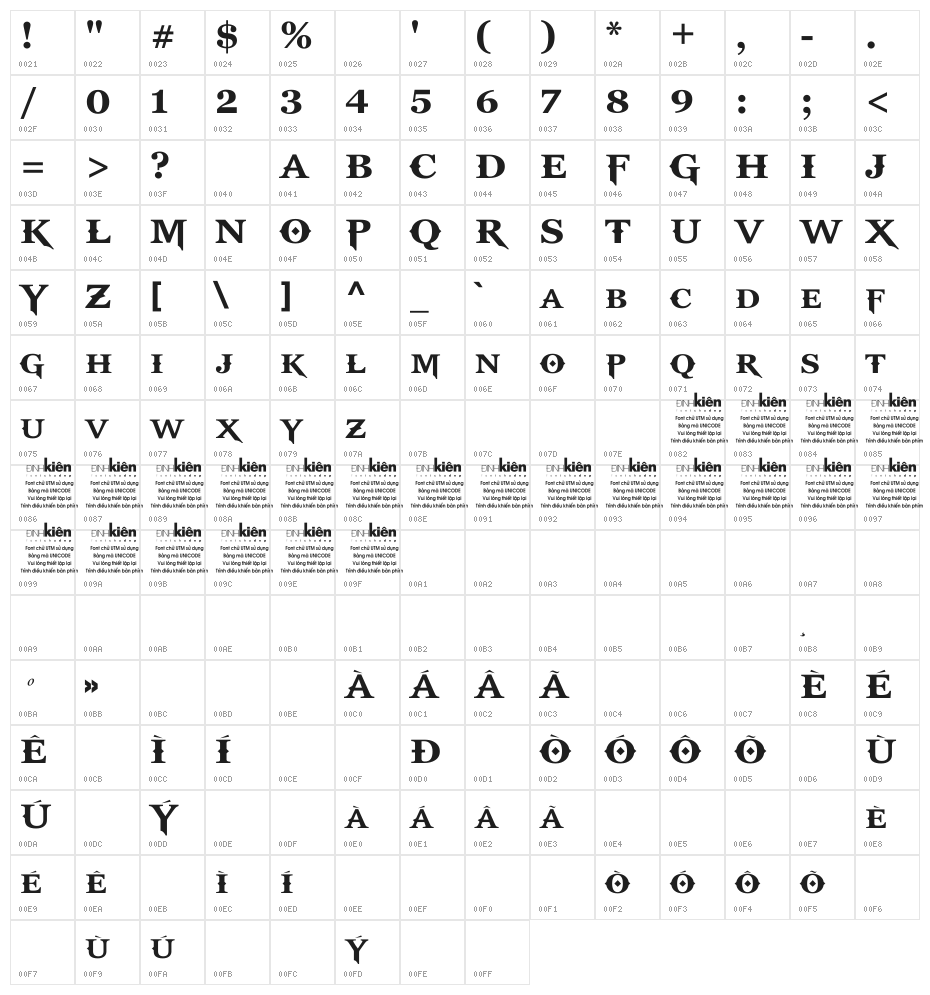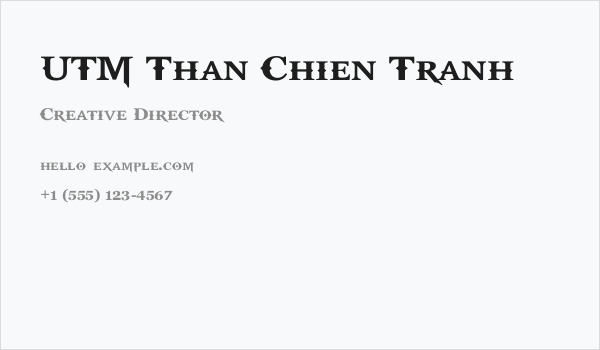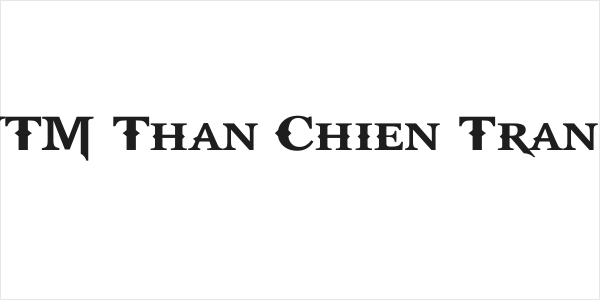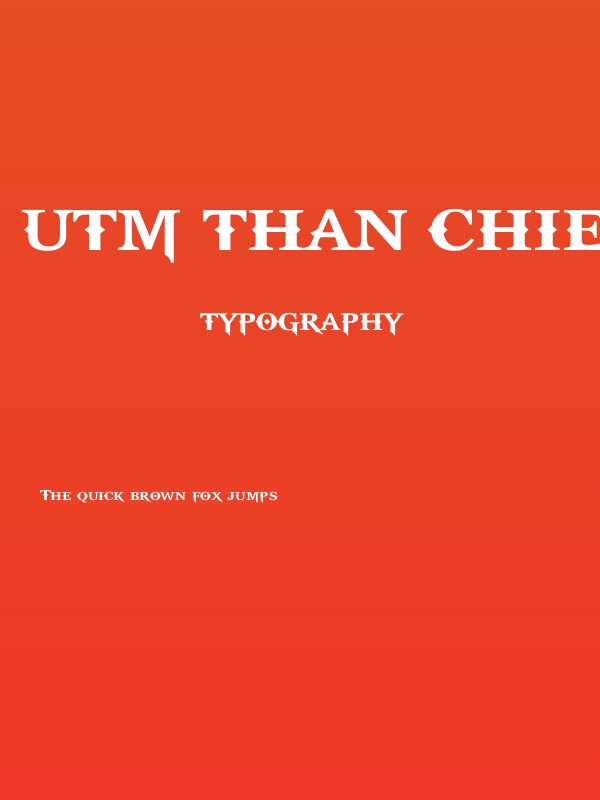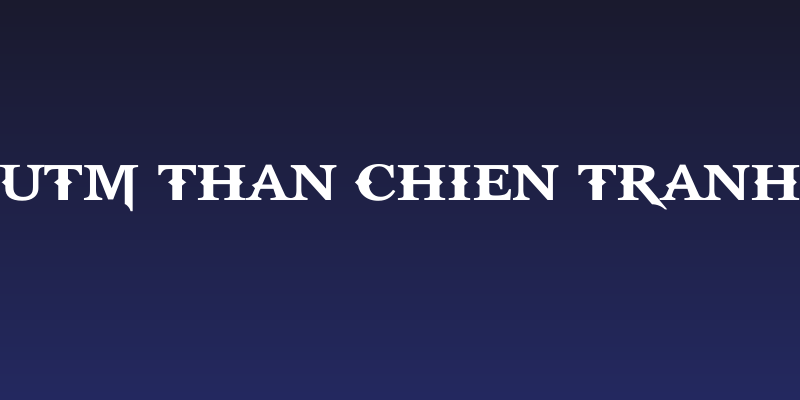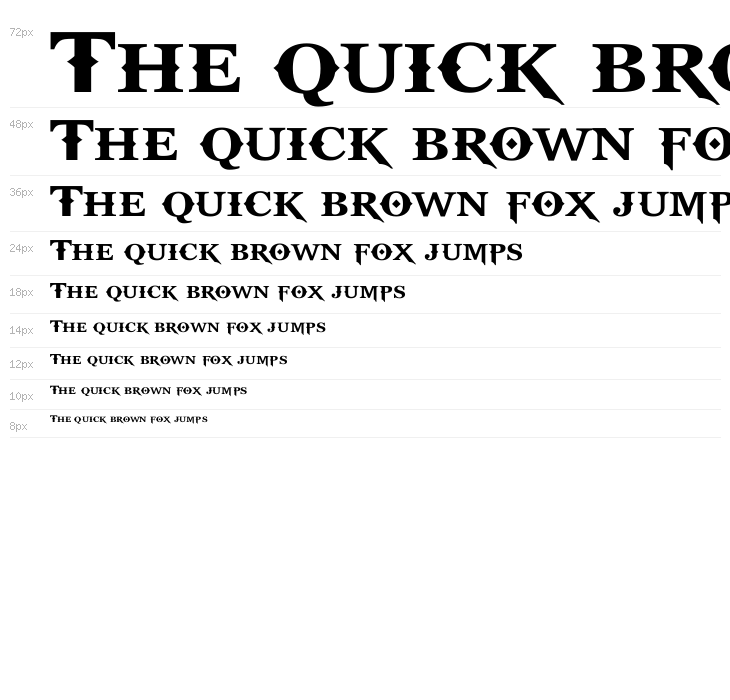
UTM Than Chien Tranh Font
UTM Than Chien Tranh Description
This font features a bold and striking design with sharp, angular serifs that give it a distinct and aggressive appearance. The uppercase letters are particularly notable for their strong presence, with pointed serifs that extend outward, creating a sense of movement and energy. The lowercase letters maintain this bold style, ensuring consistency across the typeface. The numerals are equally bold, with a uniform thickness that complements the overall design. Special characters are designed with the same attention to detail, ensuring they fit seamlessly with the rest of the font. This typeface is ideal for projects that require a strong, impactful visual statement.
| Proposed Projects | Ideal for use in posters, headlines, branding, and any project requiring a strong visual impact. |